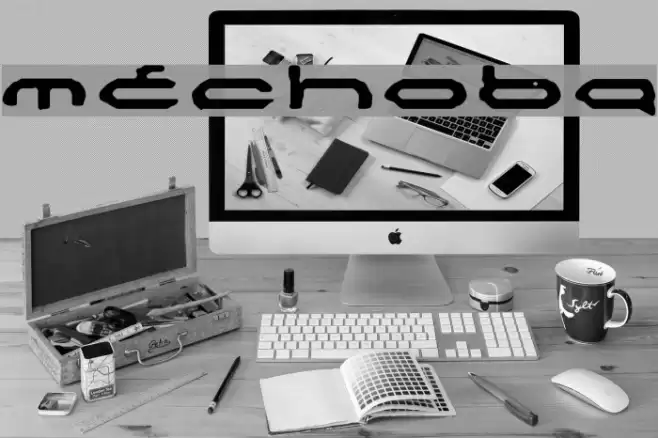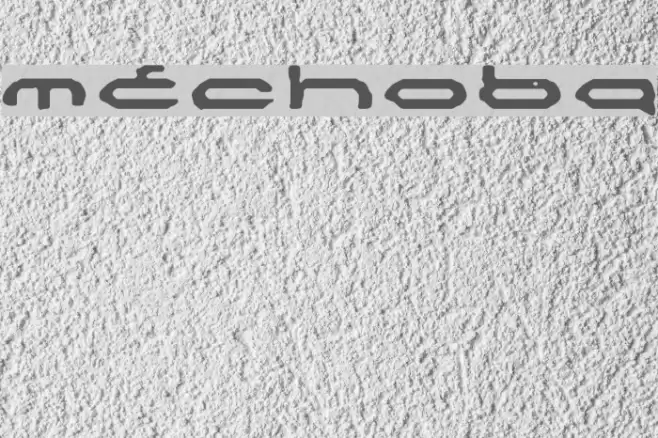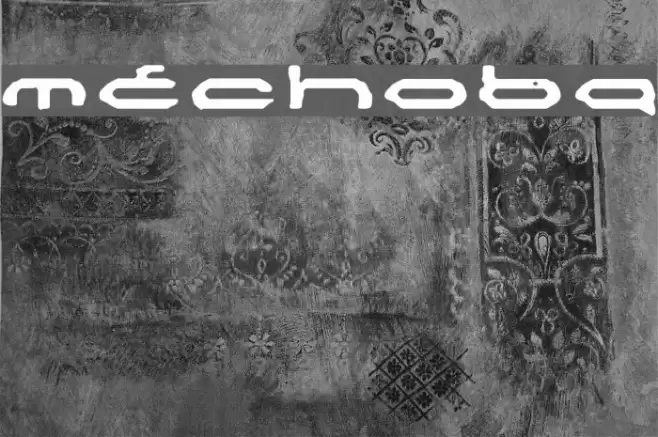
Mechoba Font
Mechoba Description
This font features a futuristic and mechanical style, characterized by its bold and angular letterforms. The design incorporates sharp edges and geometric shapes, giving it a distinct and modern appearance. The characters are evenly spaced with a consistent stroke width, providing a clean and structured look. The font includes both uppercase and lowercase letters, numerals, and a variety of special characters, making it versatile for different design needs. Its unique style is suitable for projects that require a tech-savvy or industrial aesthetic.
A futuristic, mechanical font with bold, angular letterforms and geometric shapes from Uncategorized fonts.
- Proposed Projects: Ideal for technology branding, video game titles, sci-fi movie posters, and industrial-themed designs.